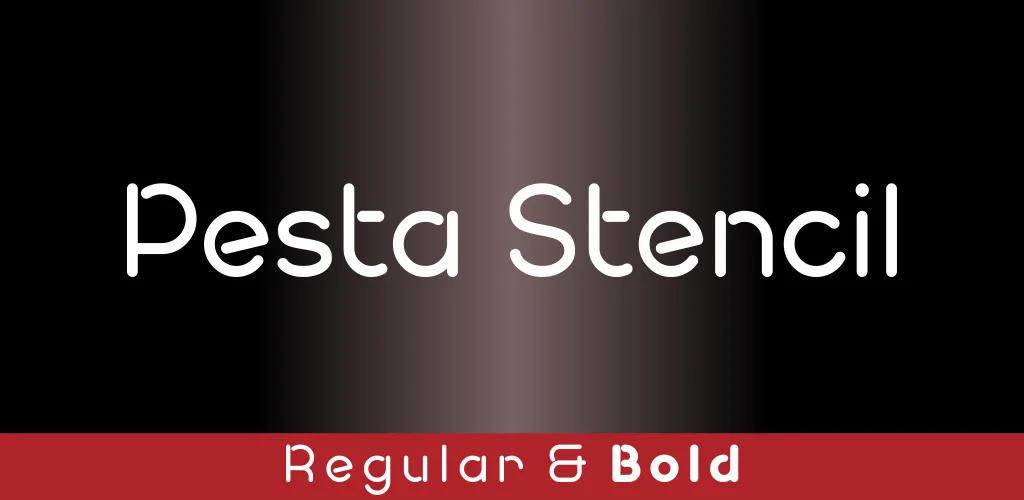
Pesta Stencil Demo Font Family
The Pesta Stencil Demo Font is perfect for posters, signage, packaging, streetwear branding, and military- or industrial-inspired designs. Its bold stencil style gives your projects a rugged, urban, and impactful look that immediately grabs attention.
What makes the Pesta Stencil Demo Font Free Download so exciting is its strong, utilitarian aesthetic. Each character is designed to be both bold and legible, making it ideal for high-contrast applications where clarity and style matter equally. It brings an edgy, industrial feel to any creative work.
The Pesta Stencil Demo Font family includes variations such as Regular, Bold, and Outline styles. These options provide designers with the flexibility to layer, highlight, and experiment while keeping a cohesive, striking typographic presence.